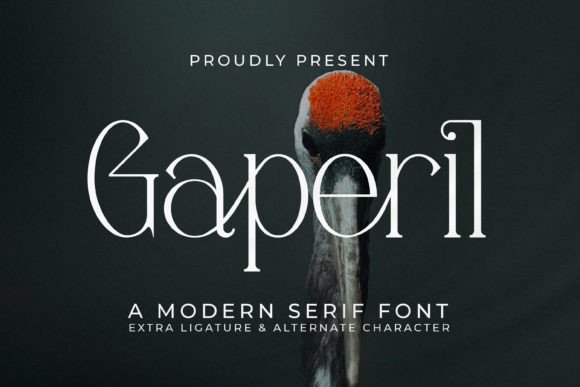
Gaperil Font: Elevate Your Designs with a Touch of Luxury
In the world of typography, a font can make or break a design. When it comes to creating a luxurious and premium feel, the right font is essential. This is where Gaperil Font comes into play. A stunning serif font, Gaperil is designed to add a touch of sophistication and elegance to any project. In this article, we’ll explore the features and benefits of Gaperil Font and how it can elevate your designs to the next level.
What is Gaperil Font?
Gaperil Font is a premium serif font that exudes luxury and refinement. Its classic design makes it perfect for a wide range of projects, from logos and branding to packaging, posters, and more. With its elegant lines and sophisticated feel, Gaperil Font is ideal for designers looking to create high-end designs that stand out from the crowd.
Key Features of Gaperil Font
- Serif design: Gaperil Font features a classic serif design that adds a touch of sophistication to any project.
- Premium feel: The font’s elegant lines and refined curves give it a luxurious feel that’s perfect for high-end designs.
- Versatile: Gaperil Font can be used for a wide range of projects, from logos and branding to packaging, posters, and more.
- Easy to read: The font’s clear and legible design makes it easy to read, even at small sizes.
Perfect for Luxury Projects
Gaperil Font is perfect for any project that requires a premium taste. Here are some examples of projects that Gaperil Font is well-suited for:
- Logos and branding: Create a luxurious and sophisticated brand identity with Gaperil Font.
- Homewares designs: Add a touch of elegance to your homewares designs, from ceramics to textiles.
- Product packaging: Elevate your product packaging with a font that exudes luxury and refinement.
- Mugs and quotes: Create beautiful and inspiring designs for mugs, quotes, and posters.
- Posters and shopping bags: Make a statement with Gaperil Font on posters, shopping bags, and other marketing materials.
- T-shirts and apparel: Create stylish and sophisticated designs for t-shirts, apparel, and accessories.
- Book covers and business cards: Use Gaperil Font to create elegant and professional book covers and business cards.
- Invitation cards and greeting cards: Add a touch of luxury to your invitation cards, greeting cards, and other stationery.
- Labels and photography: Use Gaperil Font to create beautiful and elegant labels and watermarks for your photography.
Why Choose Gaperil Font?
With so many fonts available, why choose Gaperil Font? Here are just a few reasons why Gaperil Font stands out:
- Unique design: Gaperil Font features a unique and distinctive design that’s sure to make your designs stand out.
- High-quality: The font is crafted with attention to detail and a focus on quality, ensuring that it looks great in any design.
- Versatile: Gaperil Font can be used for a wide range of projects, making it a great addition to any designer’s toolkit.
- Elegant and sophisticated: The font’s elegant lines and sophisticated feel make it perfect for designs that require a touch of luxury.
- Experiment with colors and textures: Try out different colors and textures to add depth and interest to your designs.
Gaperil Font is a premium serif font that’s perfect for designers looking to add a touch of luxury to their designs. With its elegant lines, sophisticated feel, and versatile design, Gaperil Font is ideal for a wide range of projects. Whether you’re creating logos, branding, packaging, or more, Gaperil Font is a great choice. So why not give it a try and see how it can elevate your designs to the next level?